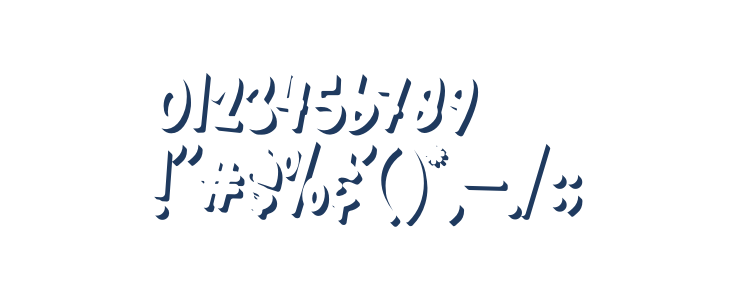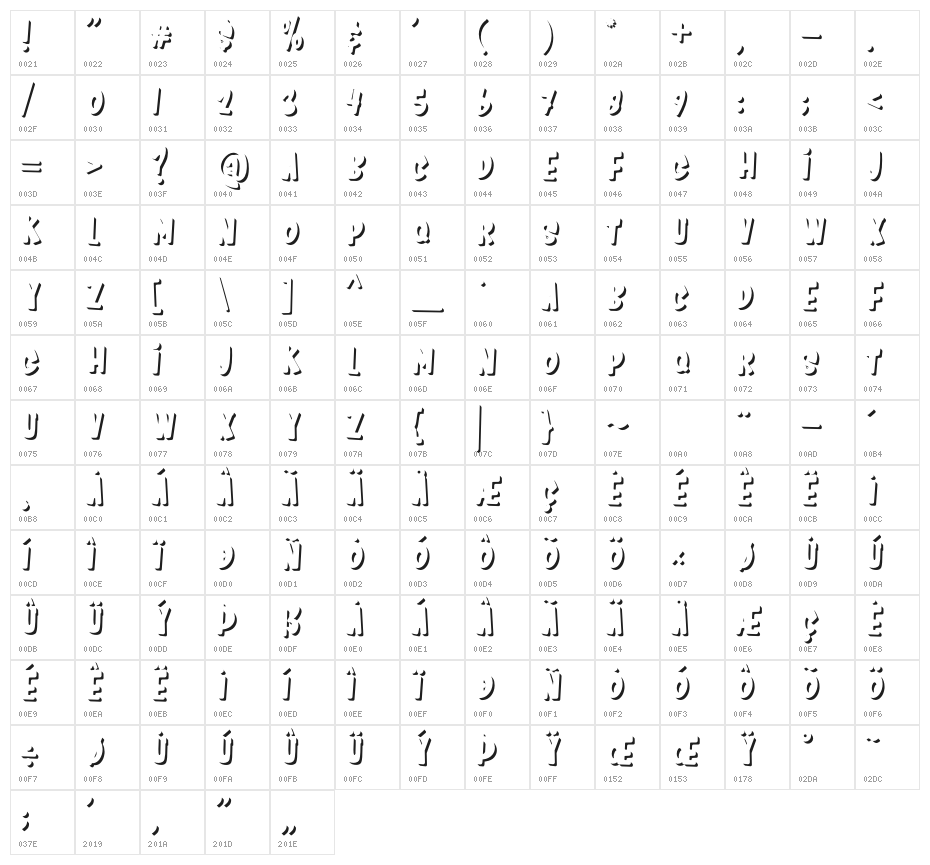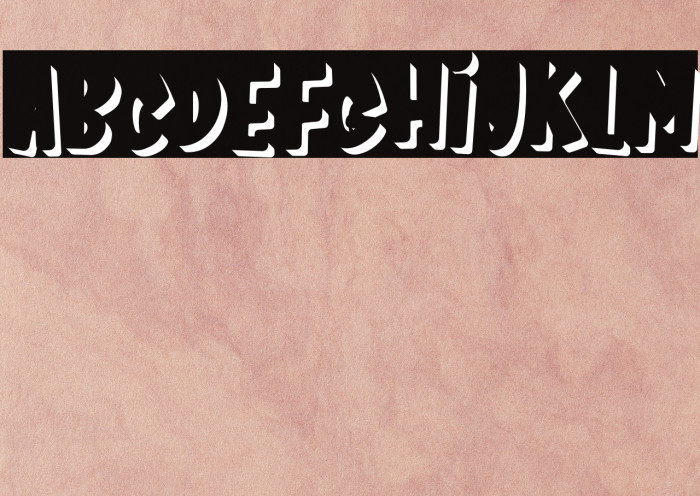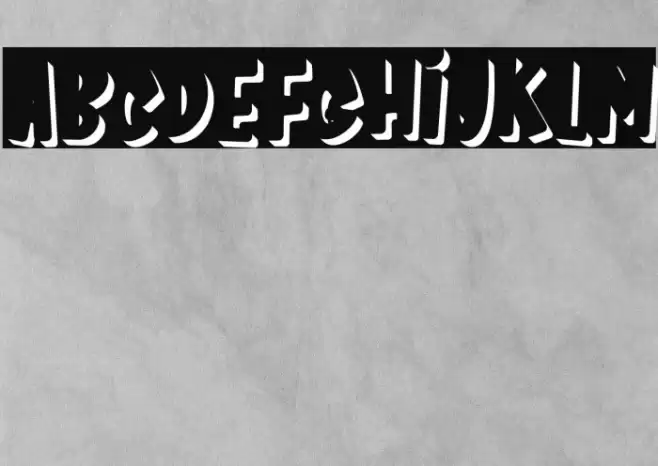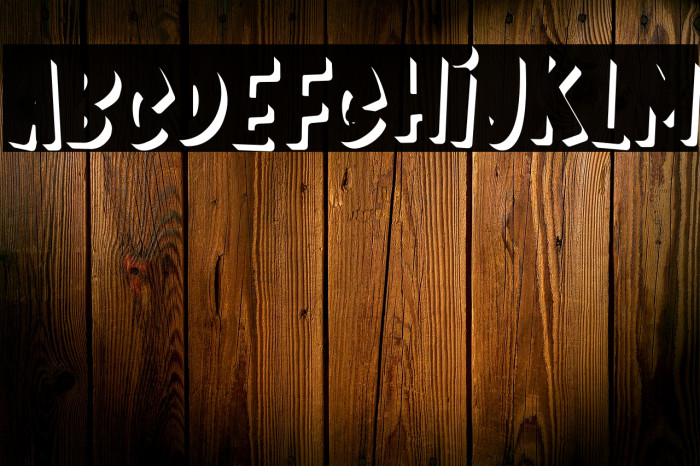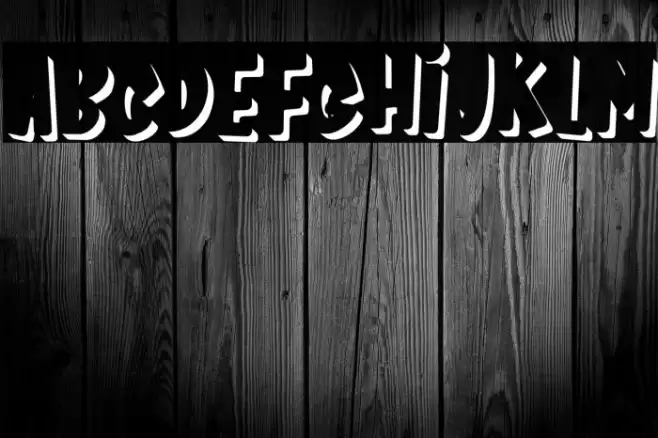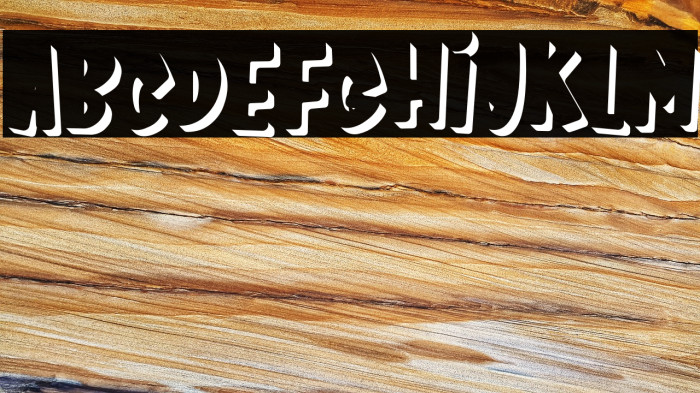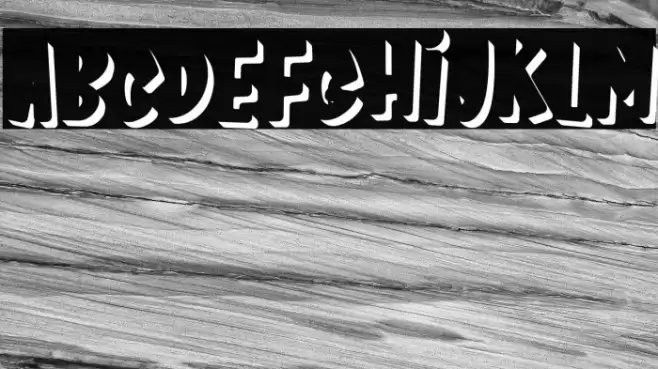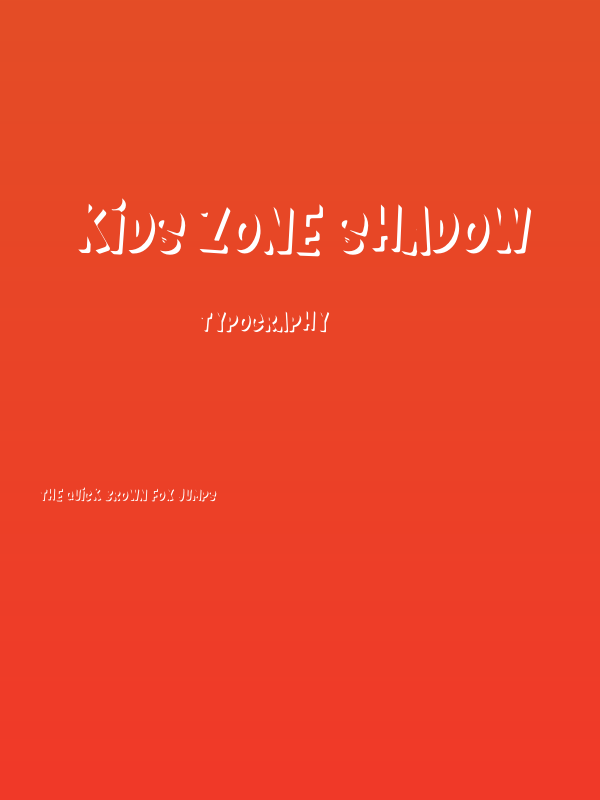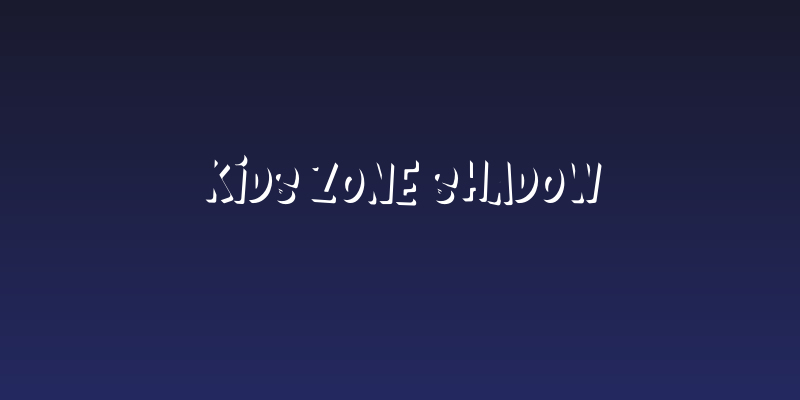
Kids Zone Shadow Font
Kids Zone Shadow Description
This playful and dynamic font features bold, uppercase and lowercase letters with a distinctive shadow effect that adds depth and dimension. The characters are slightly slanted, giving a sense of movement and energy. The font's style is reminiscent of comic or cartoon lettering, making it ideal for projects that require a fun and engaging look. The numbers and special characters maintain the same playful aesthetic, ensuring consistency across all text elements. The shadow effect is prominent, providing a three-dimensional appearance that stands out against flat backgrounds.
| Overall Style | Playful, Cartoonish |
| Use Case | Headlines, Posters, Children's materials |
| Proposed Projects | Ideal for children's book covers, playful posters, toy packaging, or any project needing a fun, energetic typeface. |